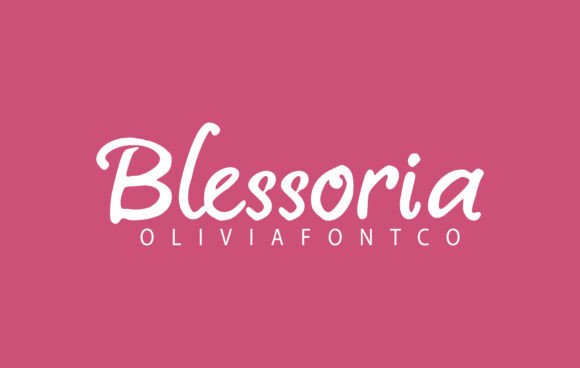
Blessoria Font: The Ultimate Handwritten Font for Creative Projects
In the world of typography, fonts play a crucial role in conveying the tone and personality of a brand or creative project. Among the numerous fonts available, Blessoria Font stands out as a unique and captivating handwritten font that has gained popularity for its romantic touch and versatility. In this article, we will explore the features, benefits, and uses of Blessoria Font, and why it has become a favorite among designers and creative enthusiasts.
What is Blessoria Font?
Blessoria Font is an authentic handwritten font that exudes a romantic and elegant feel. Designed with precision and attention to detail, this font is perfect for those who want to add a personal touch to their creative projects. Whether you’re a designer, artist, or simply a creative enthusiast, Blessoria Font is an excellent choice for anyone looking to elevate their work.
Key Features of Blessoria Font
- Authentic Handwritten Style: Blessoria Font boasts an authentic handwritten style that gives it a unique and personal touch.
- Romantic Touch: The font’s romantic touch makes it perfect for projects that require a touch of elegance and sophistication.
- Legibility: Despite its handwritten style, Blessoria Font is highly legible, making it suitable for both title and body text.
- Versatility: This font can be used for a wide range of creative projects, from magazine headlines to social media graphics, branding, and more.
Benefits of Using Blessoria Font
Blessoria Font offers several benefits that make it an attractive choice for designers and creative enthusiasts. Some of the key benefits include:
1. Enhances Creativity
Blessoria Font’s unique and romantic style can add a creative twist to your projects, setting them apart from others.
2. Saves Time
With Blessoria Font, you can create professional-looking projects quickly and efficiently, saving you time and effort.
3. Consistency
Blessoria Font’s legibility and consistency make it perfect for projects that require a uniform look and feel.
Uses of Blessoria Font
Blessoria Font is a versatile font that can be used for a wide range of creative projects. Some of the most popular uses of this font include:
1. Magazine Headlines
Blessoria Font’s elegant and romantic style makes it perfect for magazine headlines, adding a touch of sophistication to your publication.
2. Social Media Graphics
Use Blessoria Font to create eye-catching social media graphics that stand out from the crowd.
3. Branding
Blessoria Font can be used to create a unique and memorable brand identity that reflects your company’s personality and values.
4. Wedding Invitations
The font’s romantic touch makes it perfect for wedding invitations, adding a touch of elegance and sophistication to your special day.
5. Cards and Stationery
Blessoria Font can be used to create beautiful cards and stationery that make a lasting impression.
Tips for Using Blessoria Font
To get the most out of Blessoria Font, here are some tips to keep in mind:
1. Use it Sparingly
Use Blessoria Font sparingly to avoid overwhelming your audience. It’s best to use it as a headline or title font, and pair it with a simpler font for body text.
2. Experiment with Colors
Experiment with different colors to find the perfect combination that complements your project’s theme and style.
3. Pair it with Other Fonts
Blessoria Font can be paired with other fonts to create a unique and visually appealing combination.
Blessoria Font is a unique and captivating handwritten font that offers a romantic touch and versatility. With its legibility, consistency, and range of uses, it’s no wonder that this font has become a favorite among designers and creative enthusiasts. Whether you’re looking to create a magazine headline, social media graphic, or wedding invitation, Blessoria Font is an excellent choice that can elevate your creative projects to the highest level.